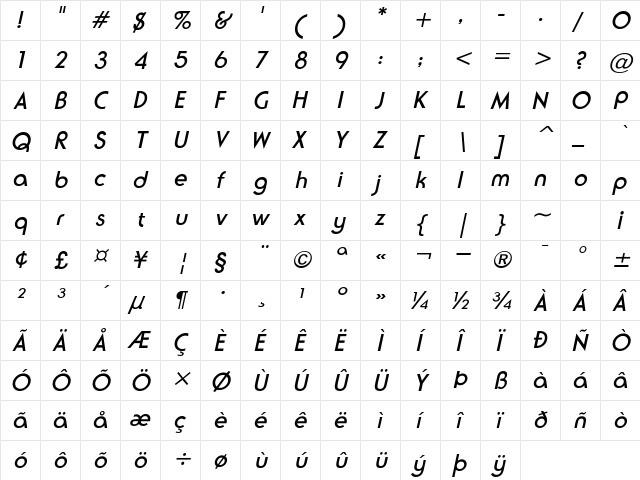
NeuseSSK Italic
Design Context for NeuseSSK Typeface
NeuseSSK offers clean, dependable letterforms without strong stylistic allegiance, making it a practical choice for designers who need flexibility. The slanted form adds forward momentum and visual energy.